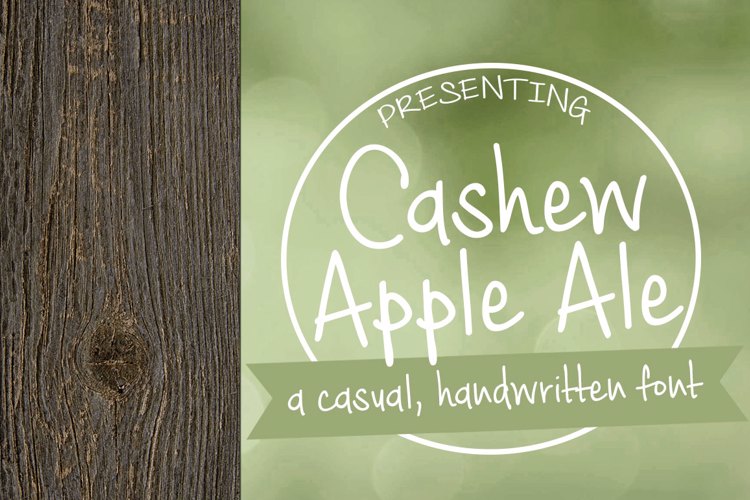
Cashew Apple Ale Font
About Cashew Apple Ale Font
A cute, casual handwritten font!
10 years agoAlways looking for a friendlyhand written font that is readable.